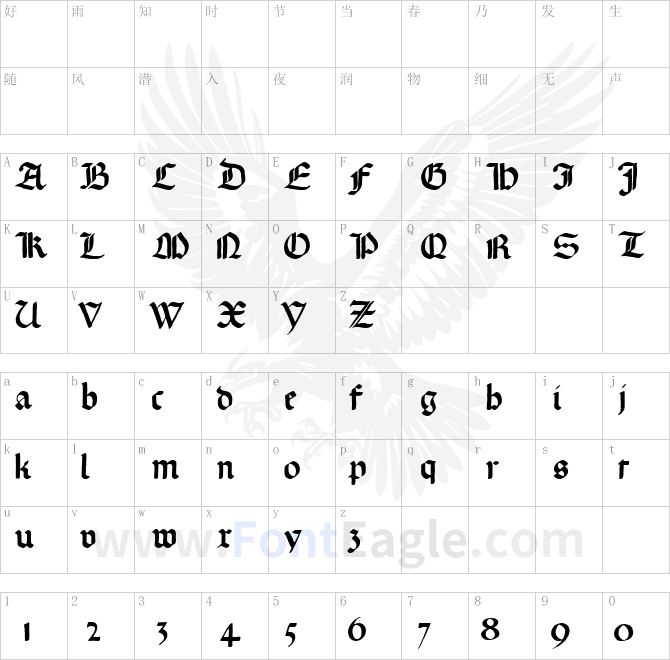
- Font name:Gotische Missalschrift
- Font Subfamily ID:PeterWiegel: Gotische Missalschrift: 2014
- Font Full Name:GotischeMissalschrift
GotischeMissalschrift is a great font, widely used in graphic design, single-page menu design, poster design and other fields, and is deeply loved by designers.GotischeMissalschrift download.